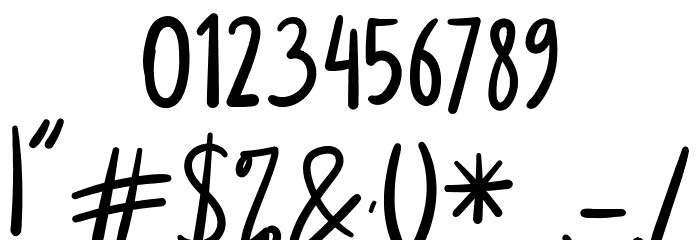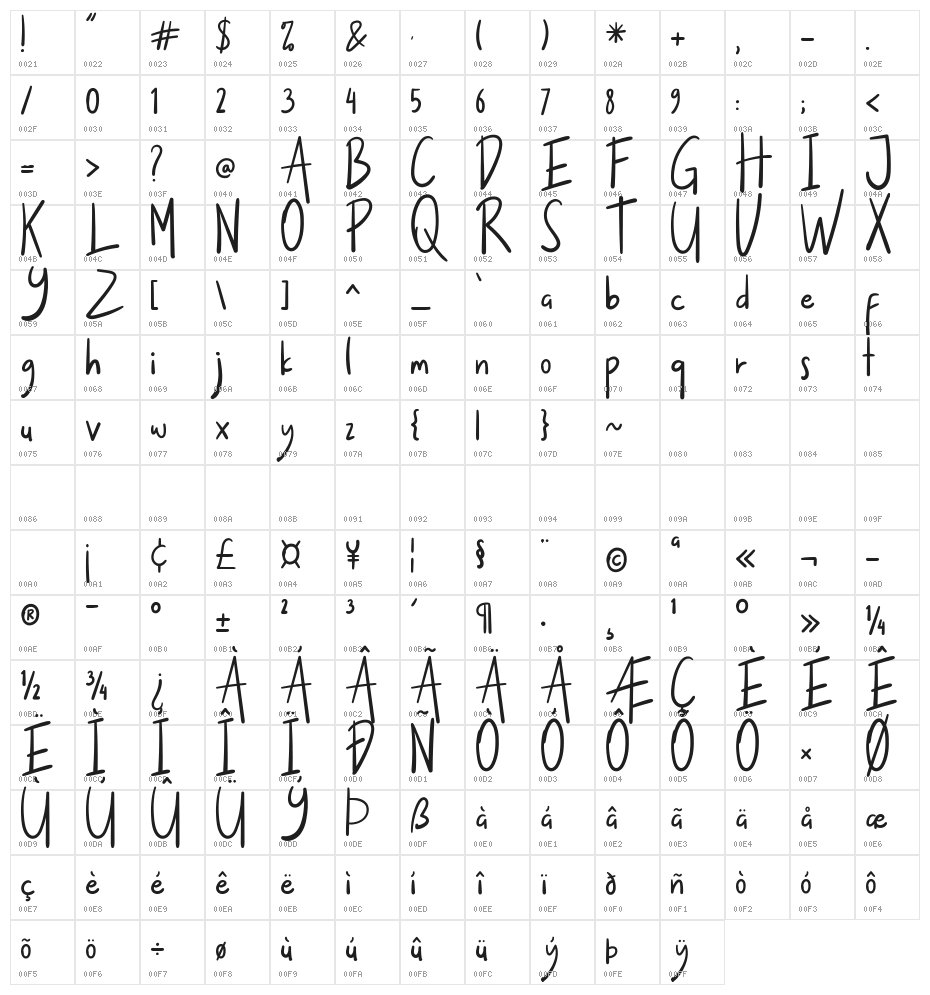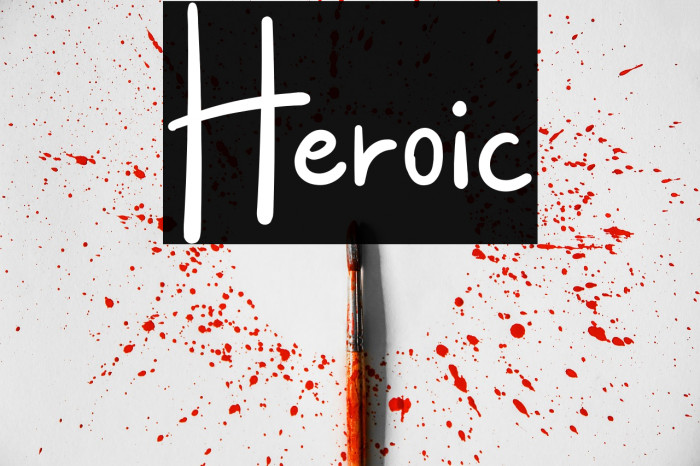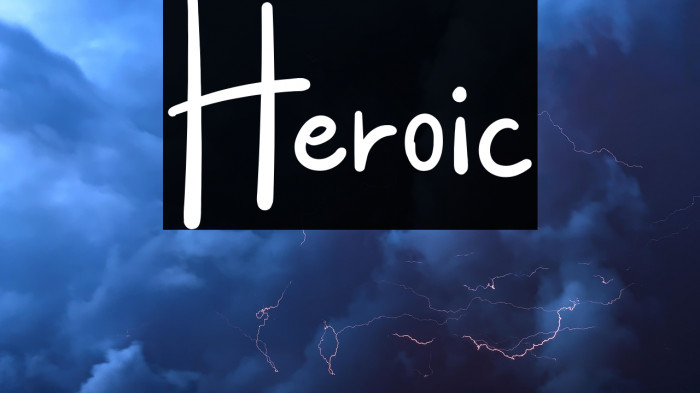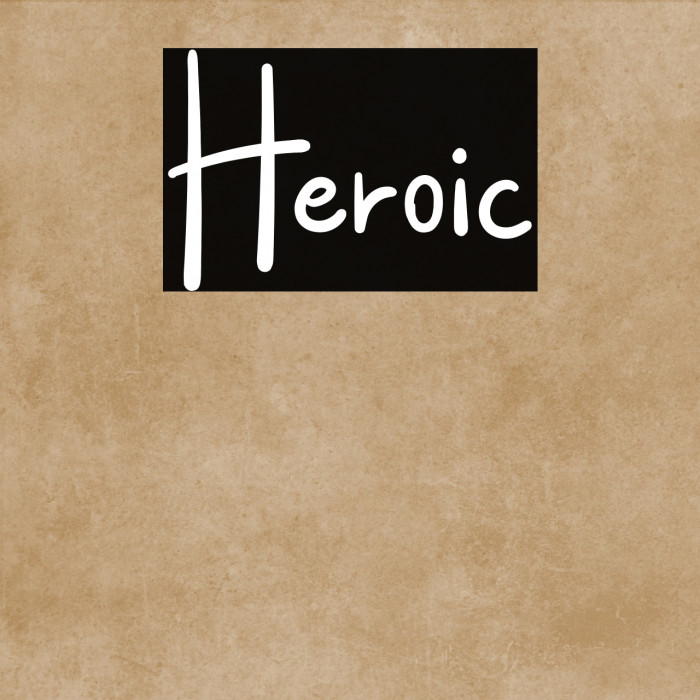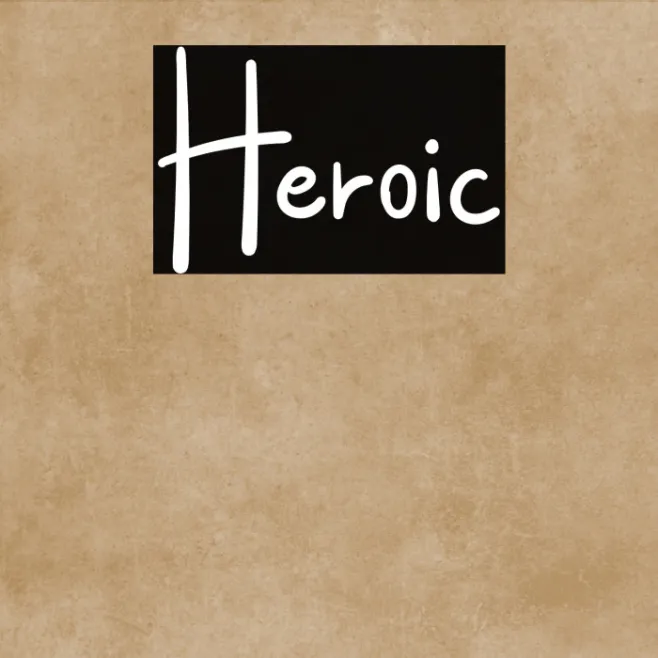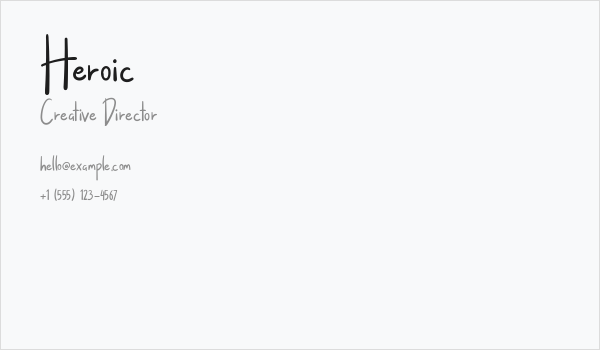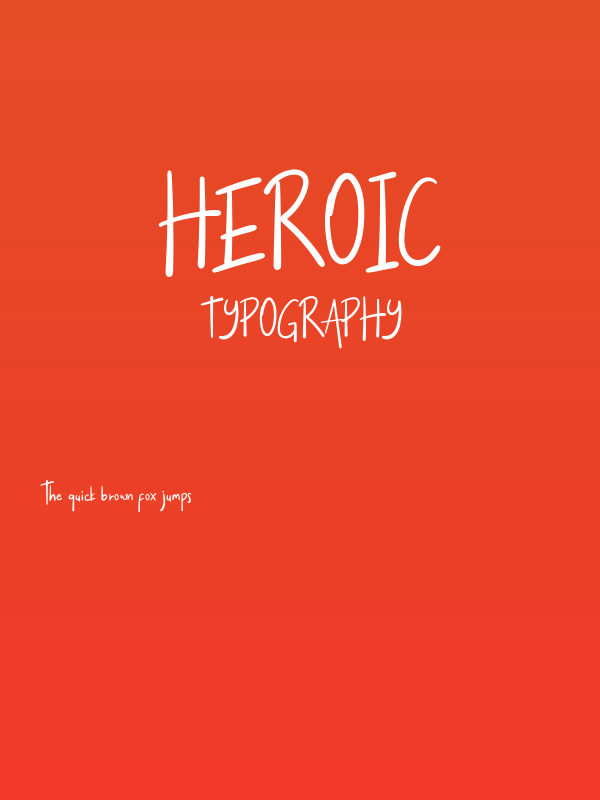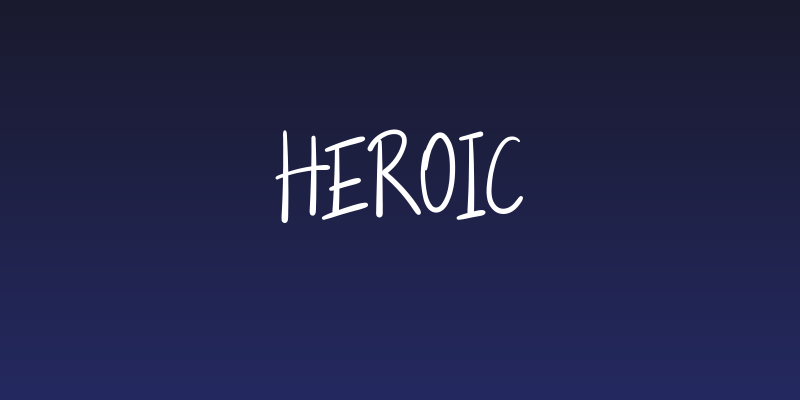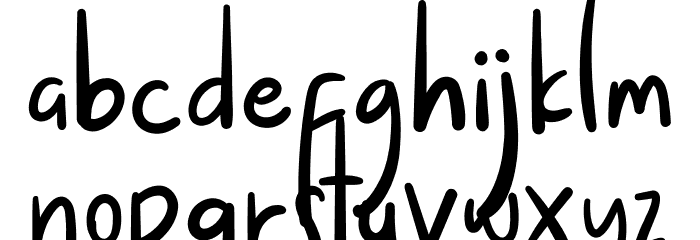
Heroic Font
Heroic Description
This font features a playful and energetic handwritten style with a casual, informal appearance. The letters are slightly slanted, giving a dynamic and lively feel. The uppercase letters are tall and narrow, while the lowercase letters are more rounded and compact. The strokes are uneven, adding to the hand-drawn aesthetic. The numbers and special characters maintain the same whimsical style, ensuring consistency across all elements. This font exudes a sense of fun and creativity, making it suitable for projects that require a personal touch.
| Proposed Projects | Ideal for greeting cards, children's books, playful branding, and creative social media graphics. |